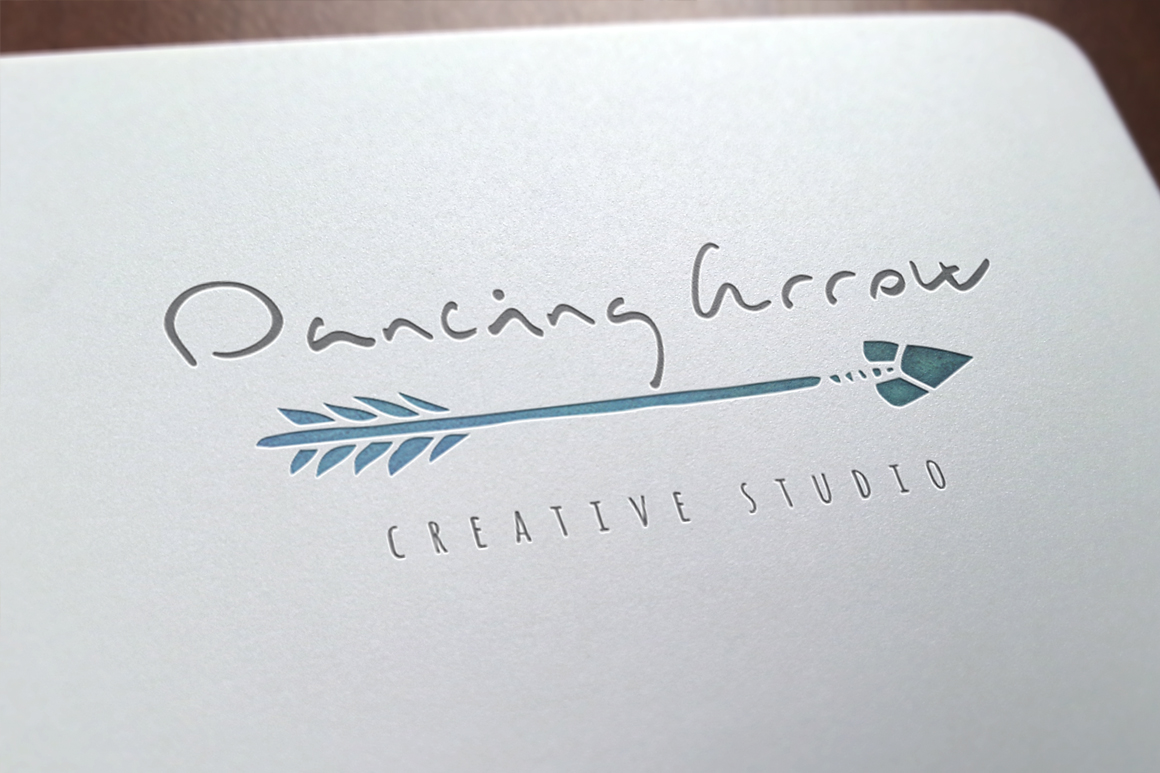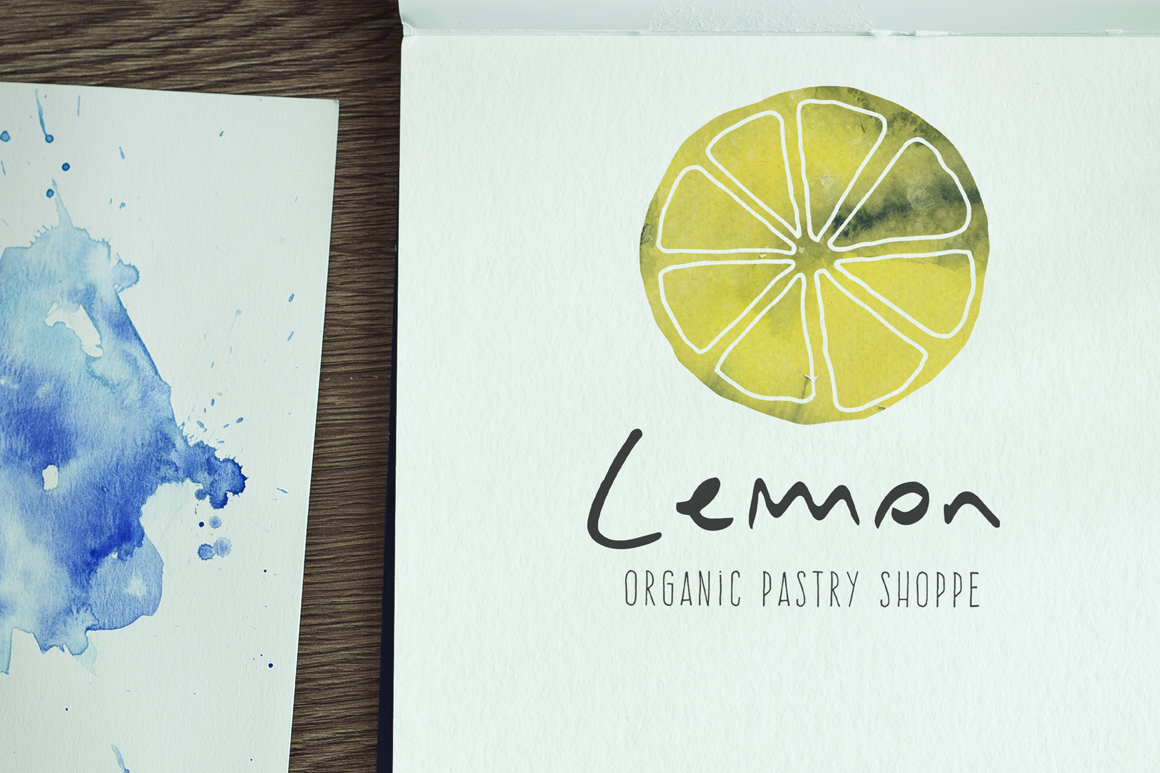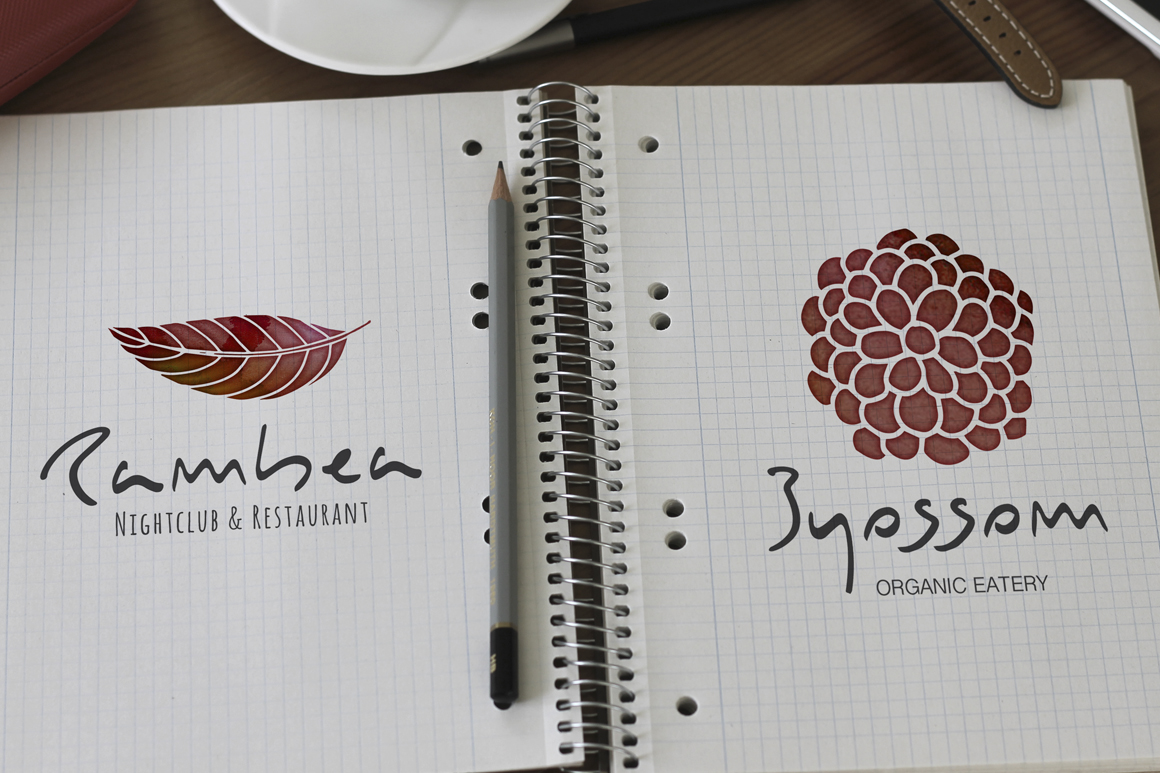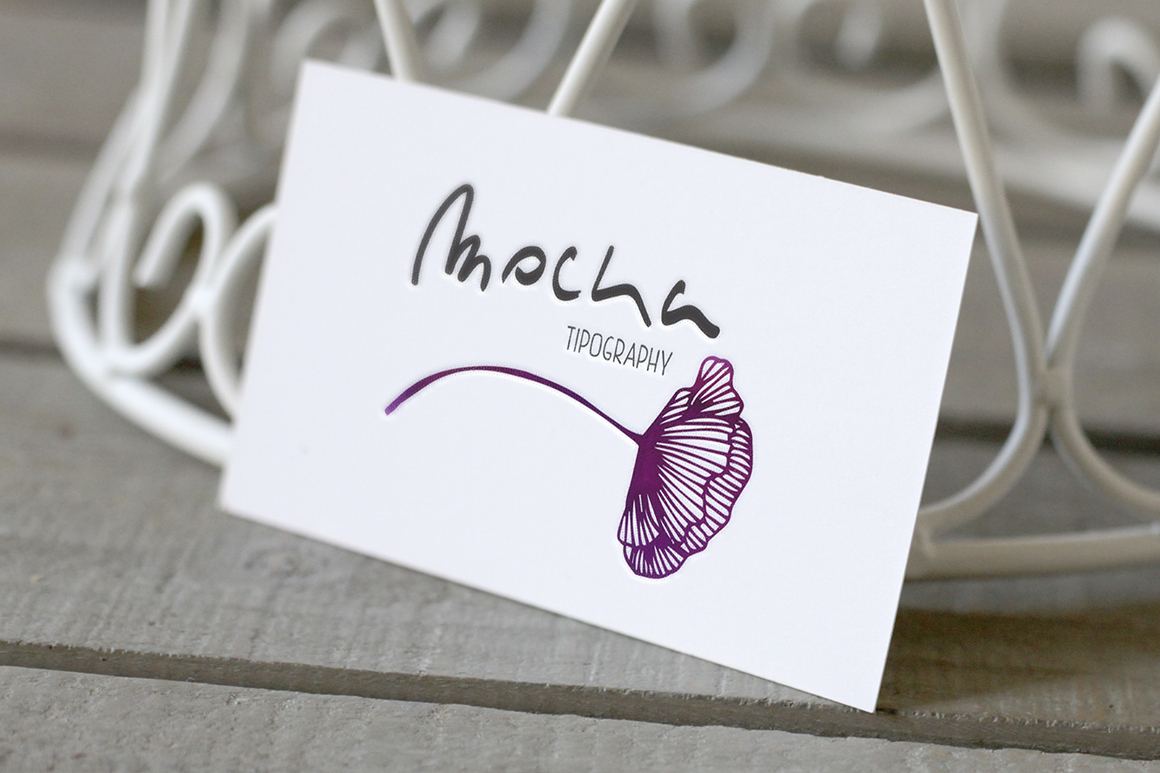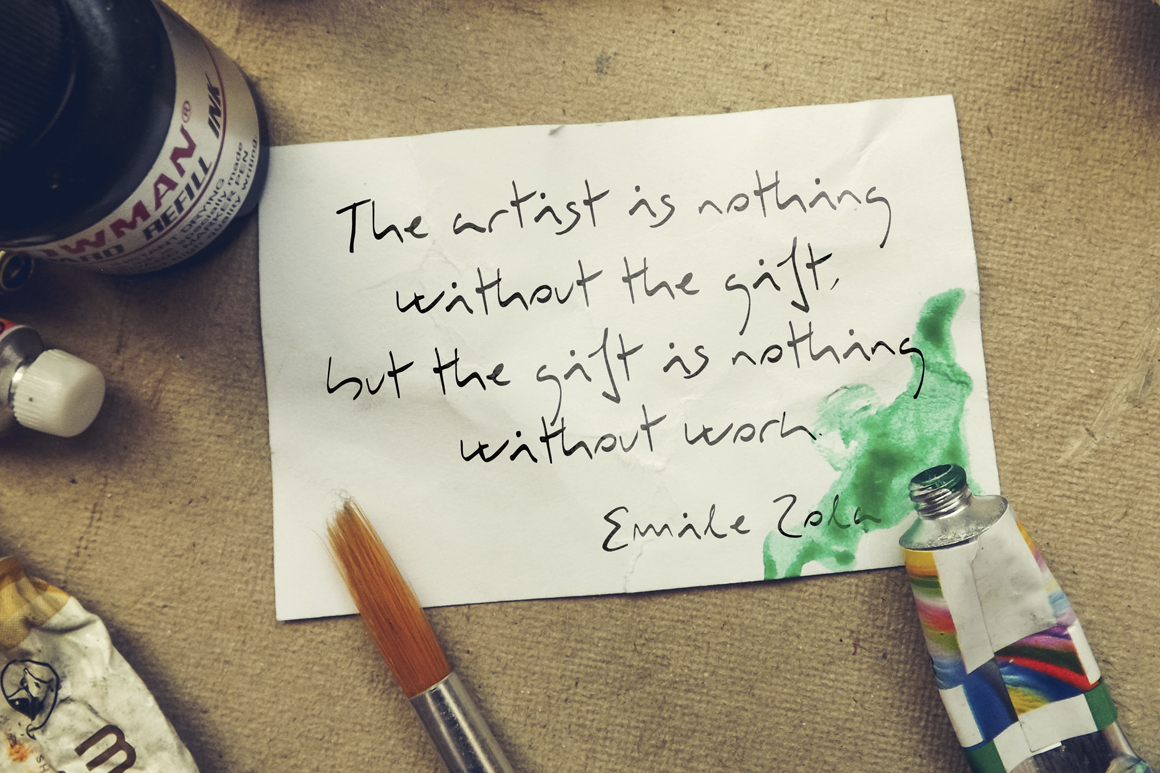
Mocka Font
About Mocka Font
Mocka is a smooth hand-painted script font that comes with 4 unqique fonts. Mocka is completely drawn by hand and allows for playful designs.
The Mocka font family includes:
Mocka Regular
Mocka Bold
Mocka Light
Mocka Ultralight